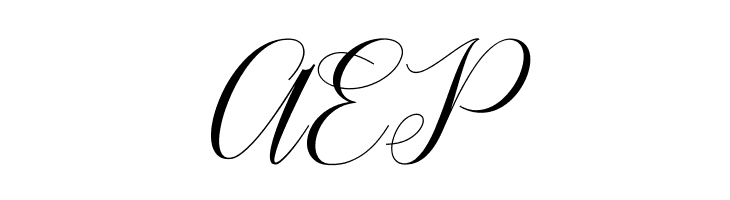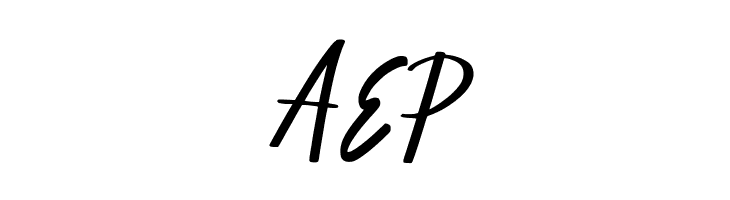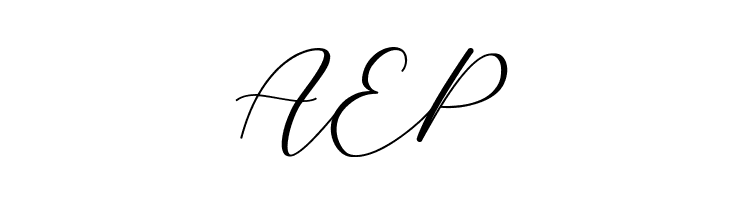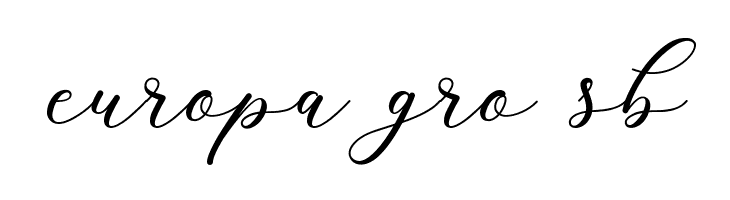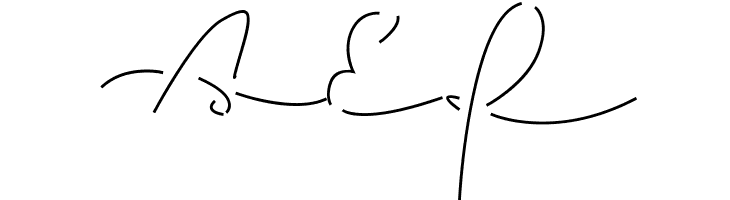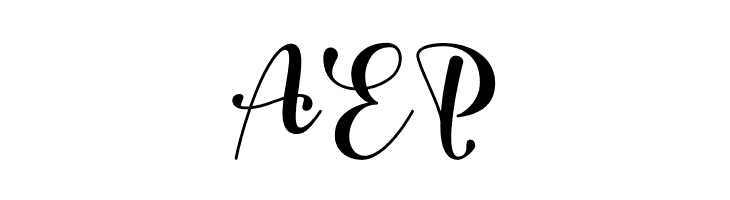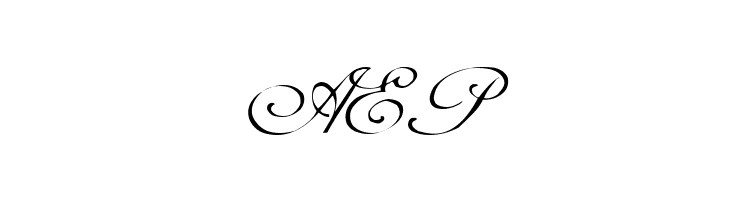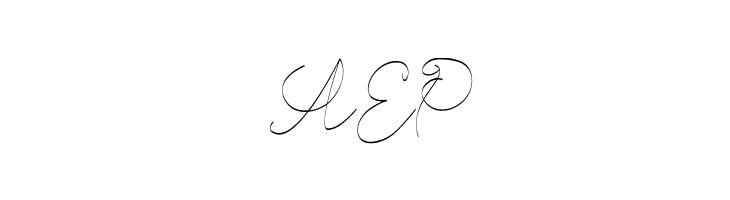
• CatalineScript
An elegant script font with high contrast and ornate flourishes.
• CatalystScript
A flowing, elegant script font with smooth, connected strokes.
• Catetin Regular Script
A lively, cursive script font with fluid strokes and elegant slant.
• Cavilay Script
A graceful and fluid script font with elegant cursive strokes.
• Cecilia Script
An elegant, flowing script font with intricate loops and swirls.
• Cecilia Script Regular
An elegant and flowing script font with intricate loops and flourishes.
• Celebes Script
A graceful and fluid script font with a natural handwriting style.
• Celebrate Script
Elegant, high-contrast script with decorative flourishes.
• Celeste Normal
• CelinaStephanie-Script
A lively script font with flowing, cursive strokes and a playful character.